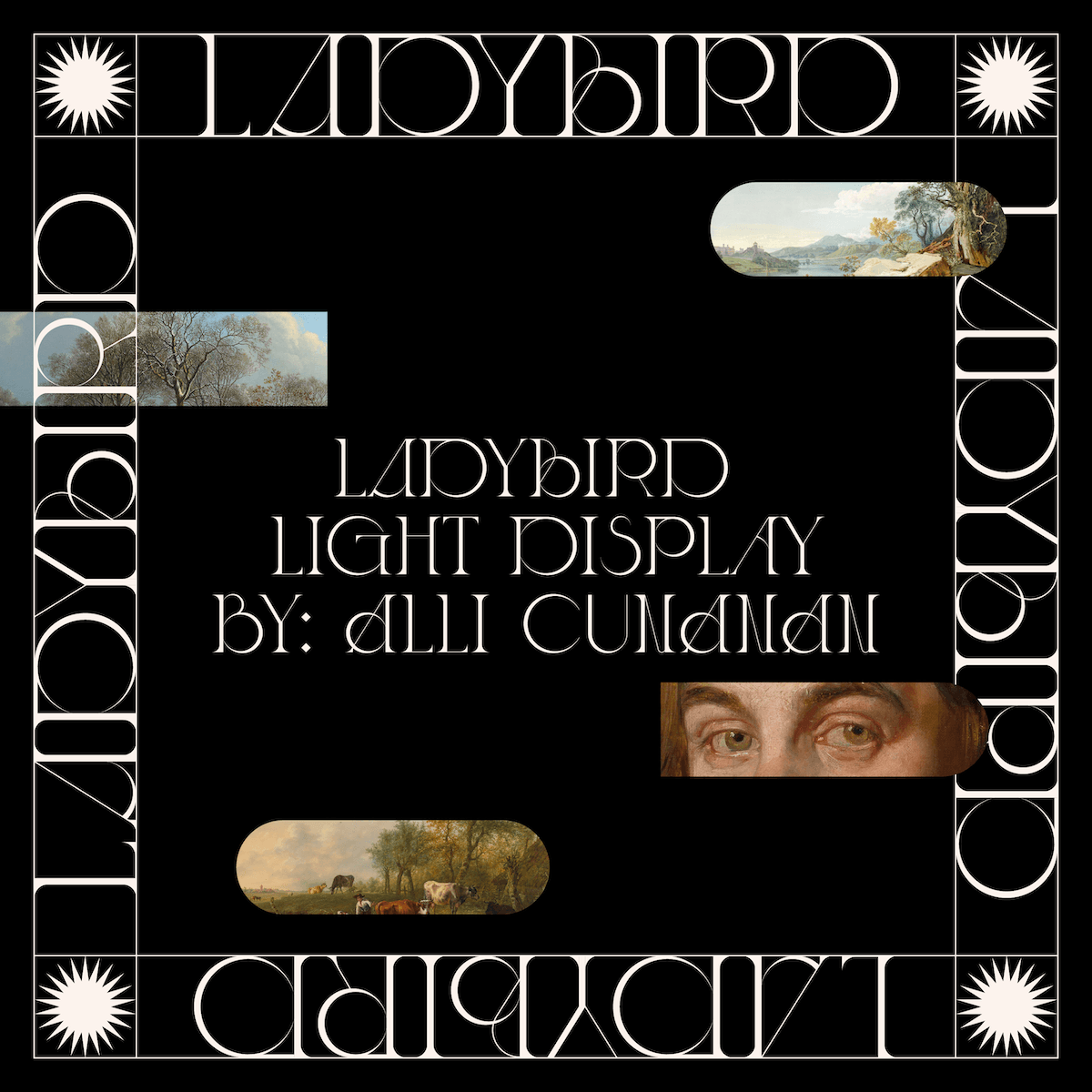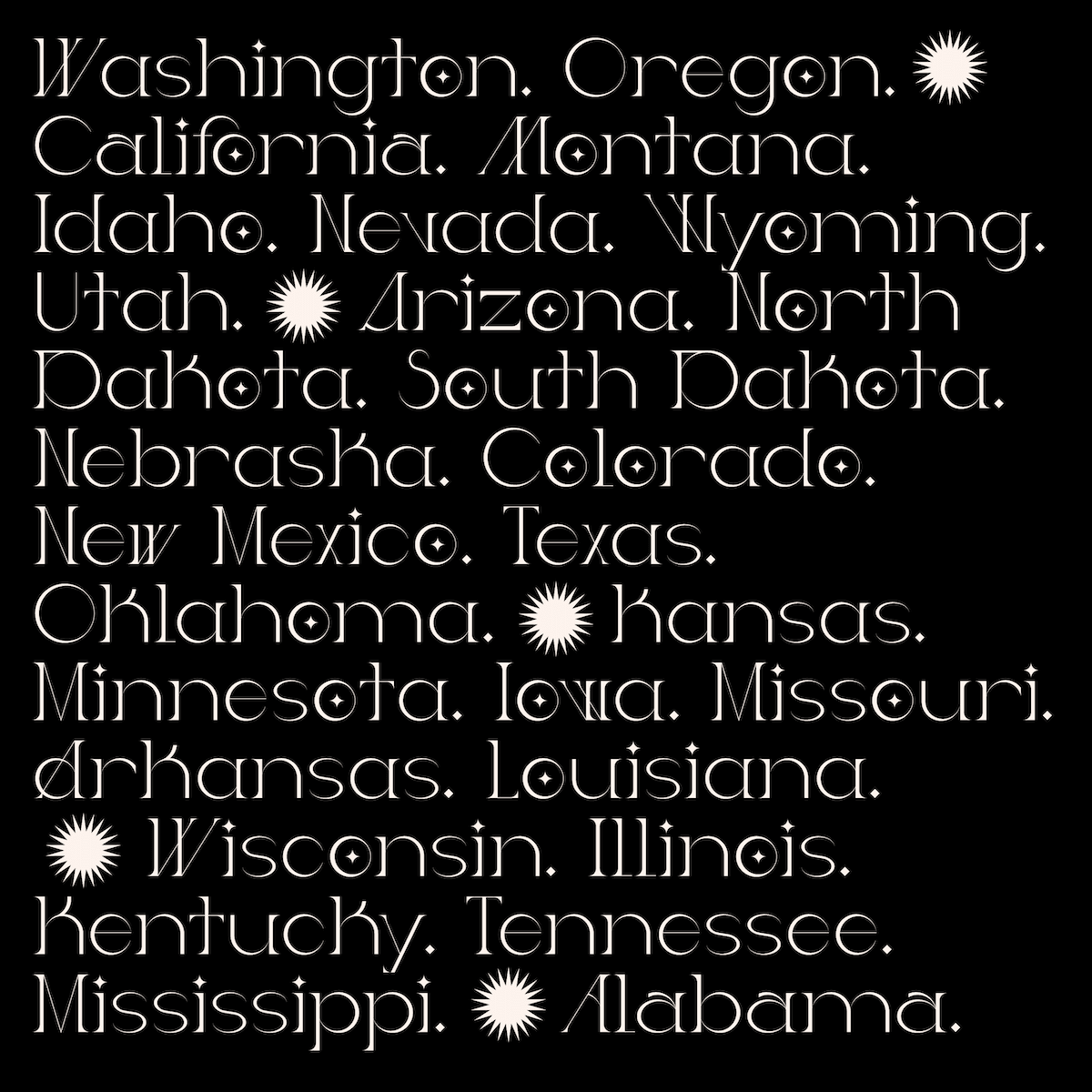
Web ladybird light font search results,fontke for you to share ladybird light resources,provide font download,font upload,font identification,font conversion,font. Web install the font on your mac os x or windows system. Web ladybird light is a delicate serif font inspired by the elegance of irish actor, saoirse ronan.
Designed With Beautiful Contrasts And Stylistic Alternates, This New Font Has Tons.